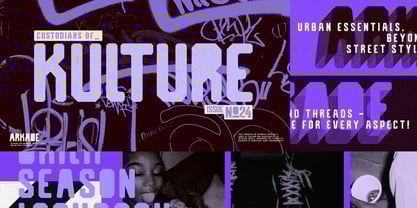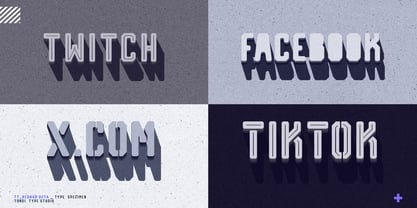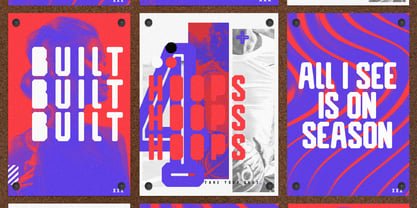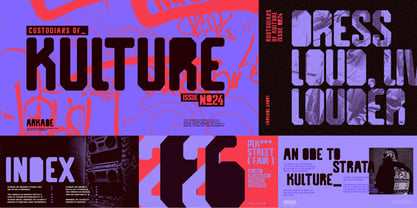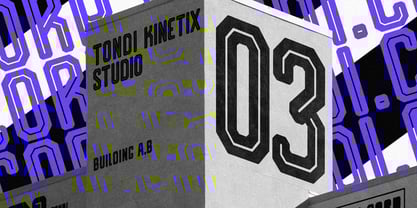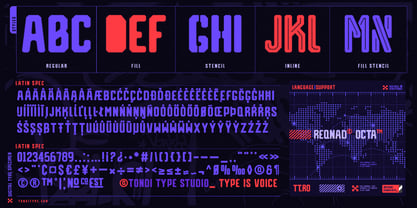
Reqnad Octa
by Tondi Type Studio
The Reqnad Octa Font Family was designed by Fhumulani Nemulodi and published by Tondi Type Studio. Reqnad Octa contains 5 styles and family package options.
Discover Reqnad Octa, a cutting-edge display sans serif typeface designed with an industrial flair. Featuring a geometric aesthetic, rounded finishes, and unique octagonal angles, Reqnad Octa stands out in any design project. This versatile font family includes five distinct styles, with a free sample style available for you to try.
Included Styles in the Reqnad Octa Font Family:
• Regular
• Fill
• Stencil
• Inline
• Inline Stencil
Ideal Uses for Reqnad Octa: Reqnad Octa is perfect for a wide range of applications, including but not limited to:
• Sports
• Headlines
• Packaging
• Editorial
• Apparel
• Outdoor Design